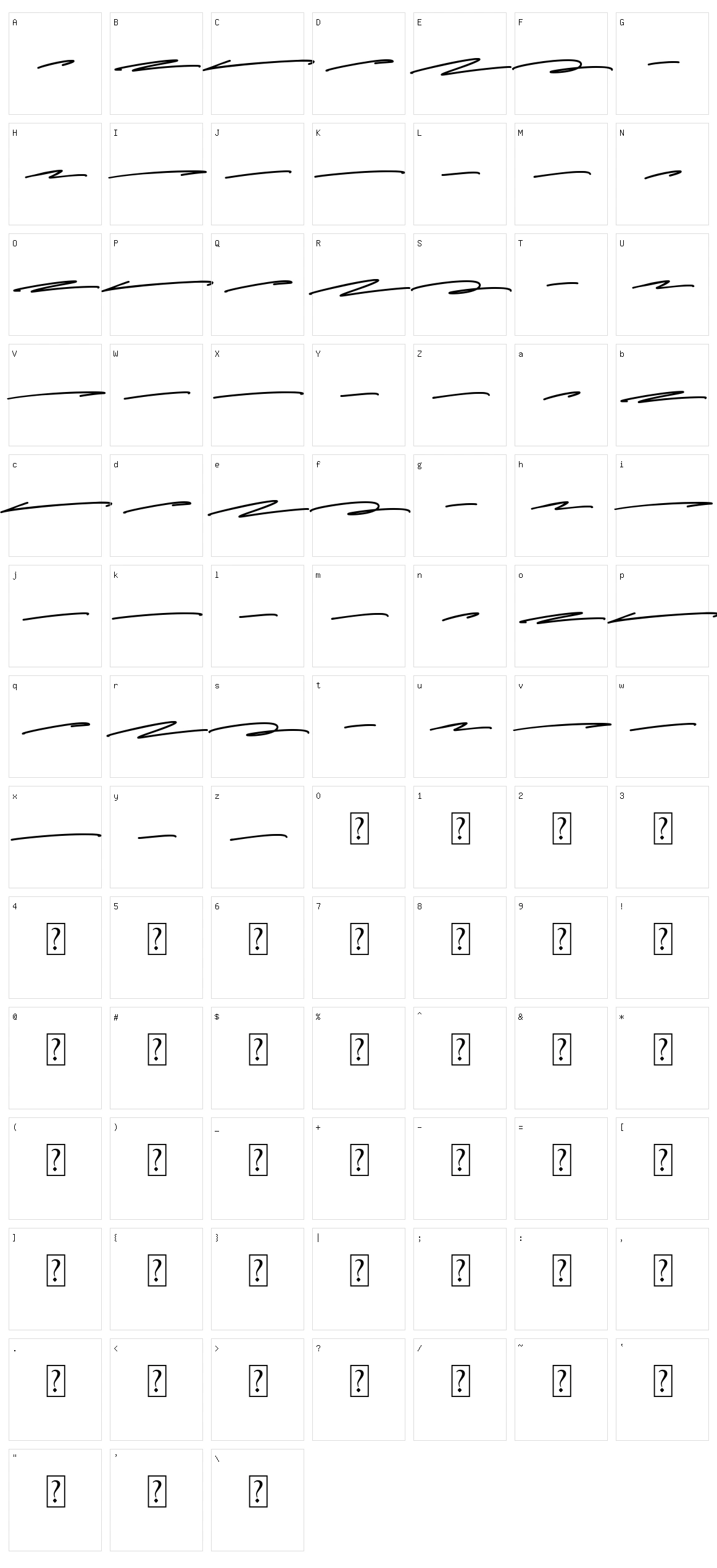
The free font Scandynafia is carefully designed by Kong Font, showcasing a thoughtful balance of creativity and usability and falls under the Script font style. When you download the ZIP file, it contains only 183.48 KB of font files, making it lightweight and quick to download. Please review the license details below to understand permitted usage and distribution rights. If license information is not available, we recommend using this font for personal projects only or contacting the author directly for commercial usage permissions.